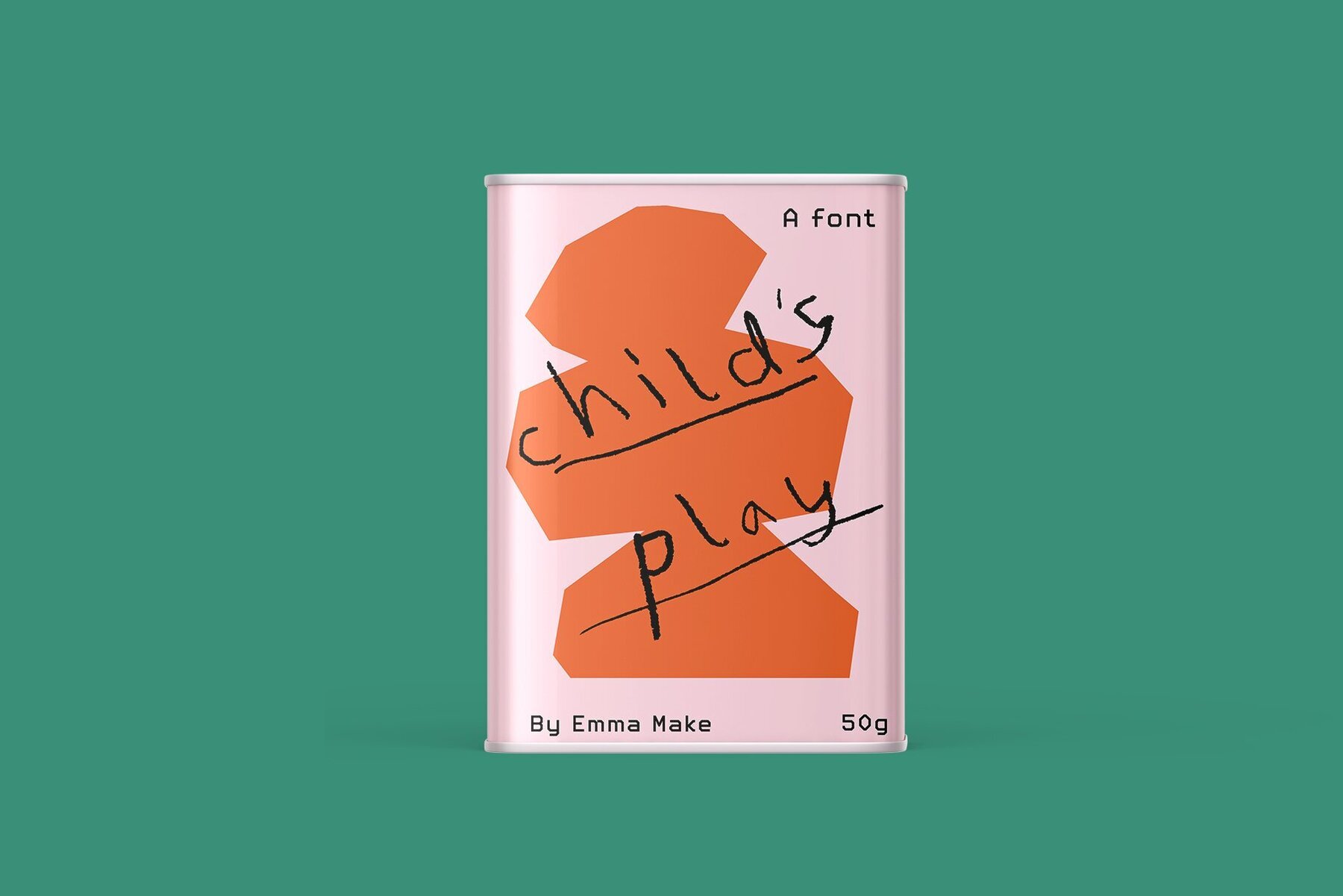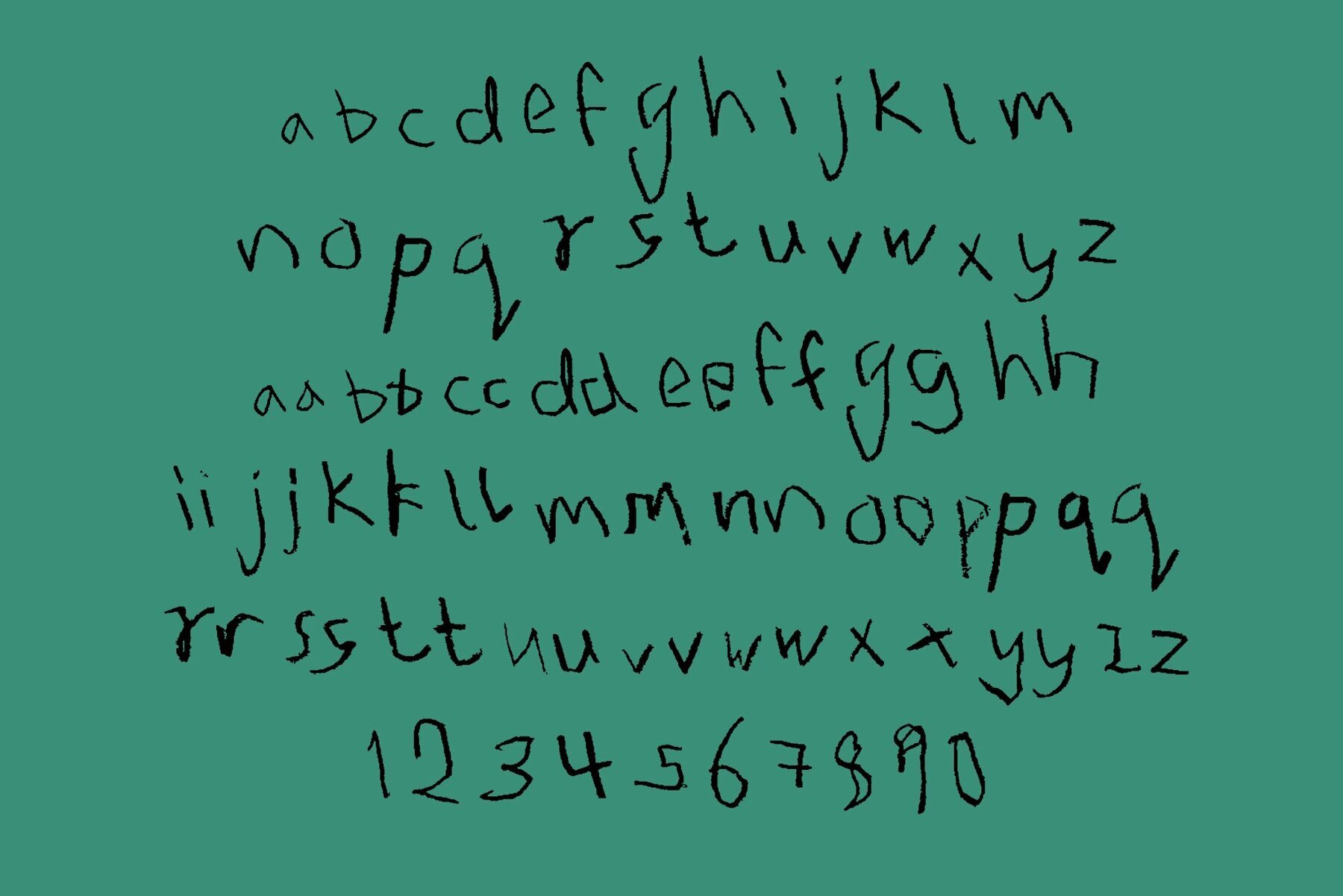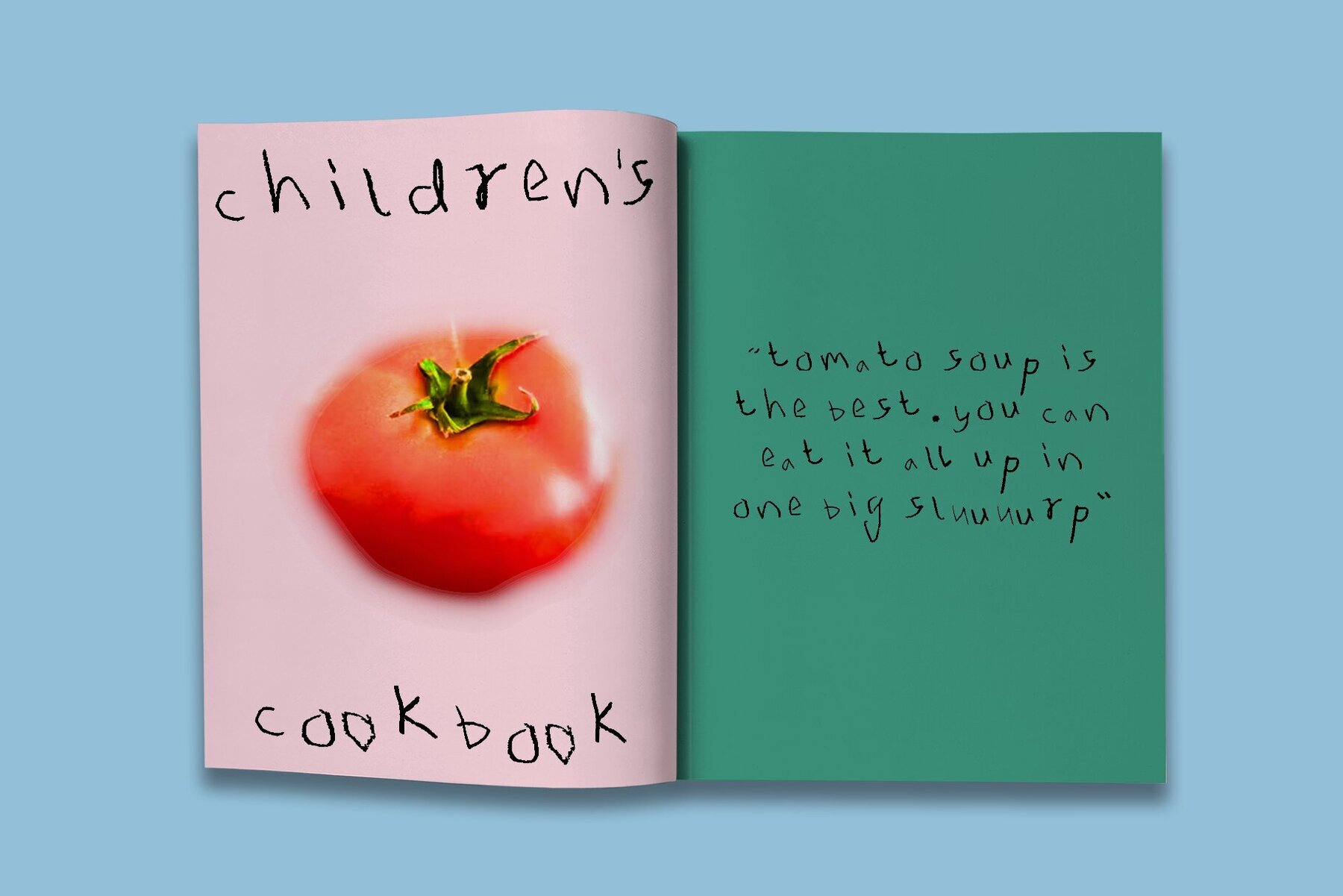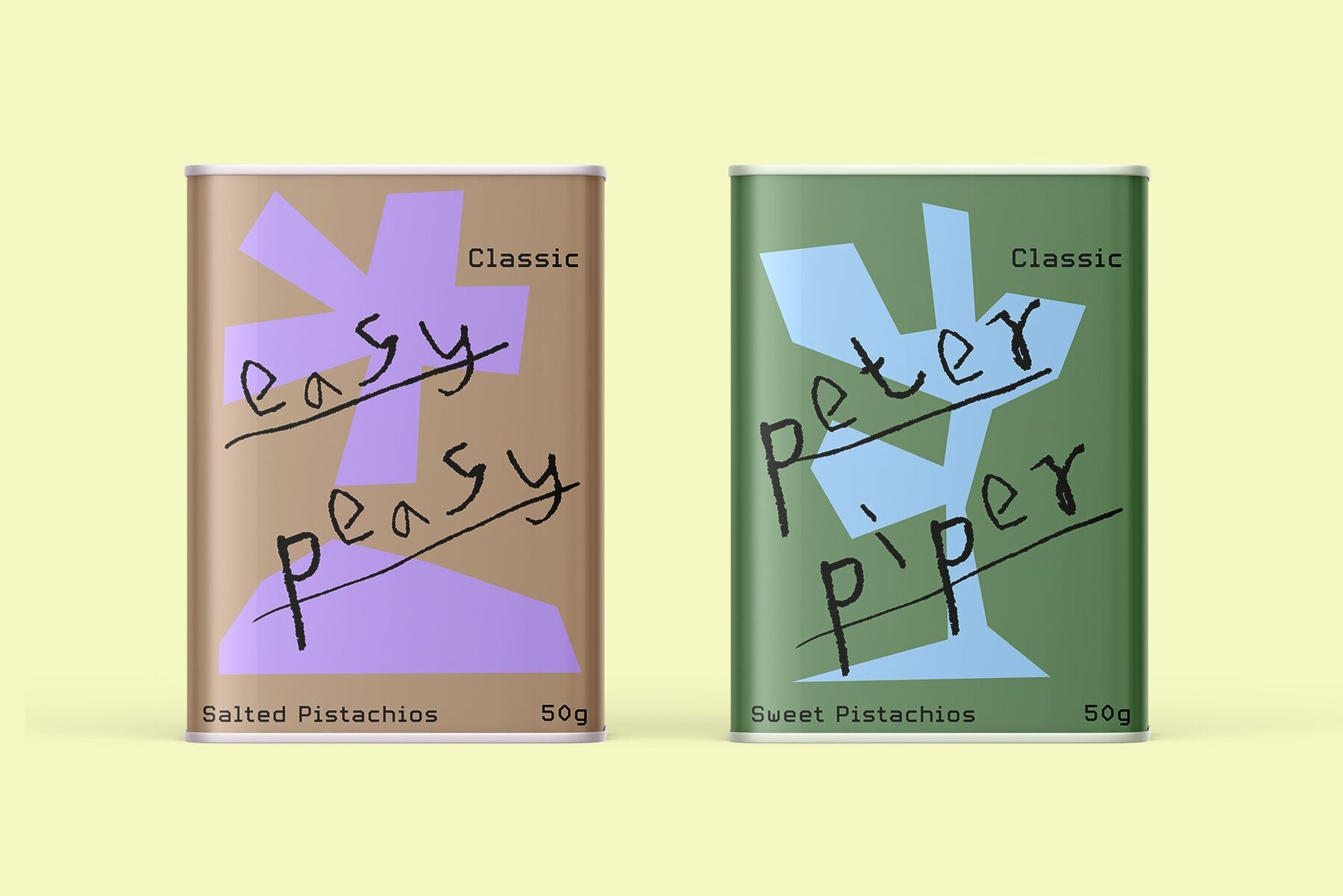
Childs Play Font
Childs Play By Emma
Child's Play is a delightful hand-drawn typeface, capturing the authentic essence of children's handwriting. Its playful look makes it an excellent choice for projects that incorporate drawings or hand-drawn elements, bringing an accessible, whimsical touch to posters and websites. Its imperfect edges provide a charming contrast when paired with display fonts.Child's Play: Hand-Drawn Font Inspired by Kids' Handwriting